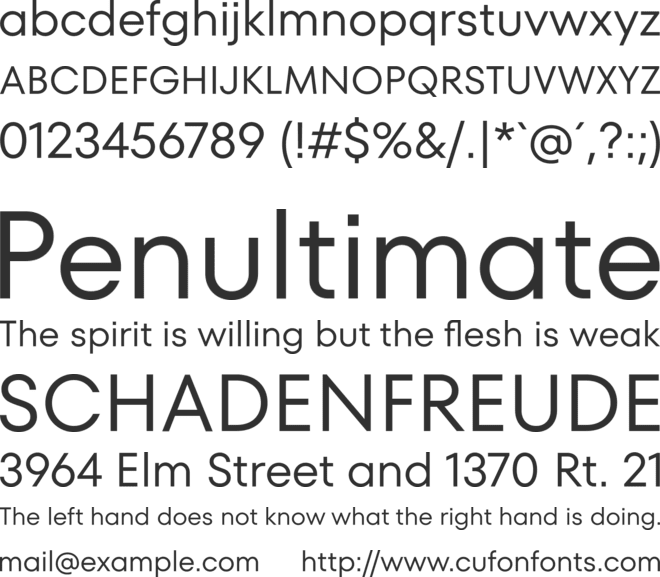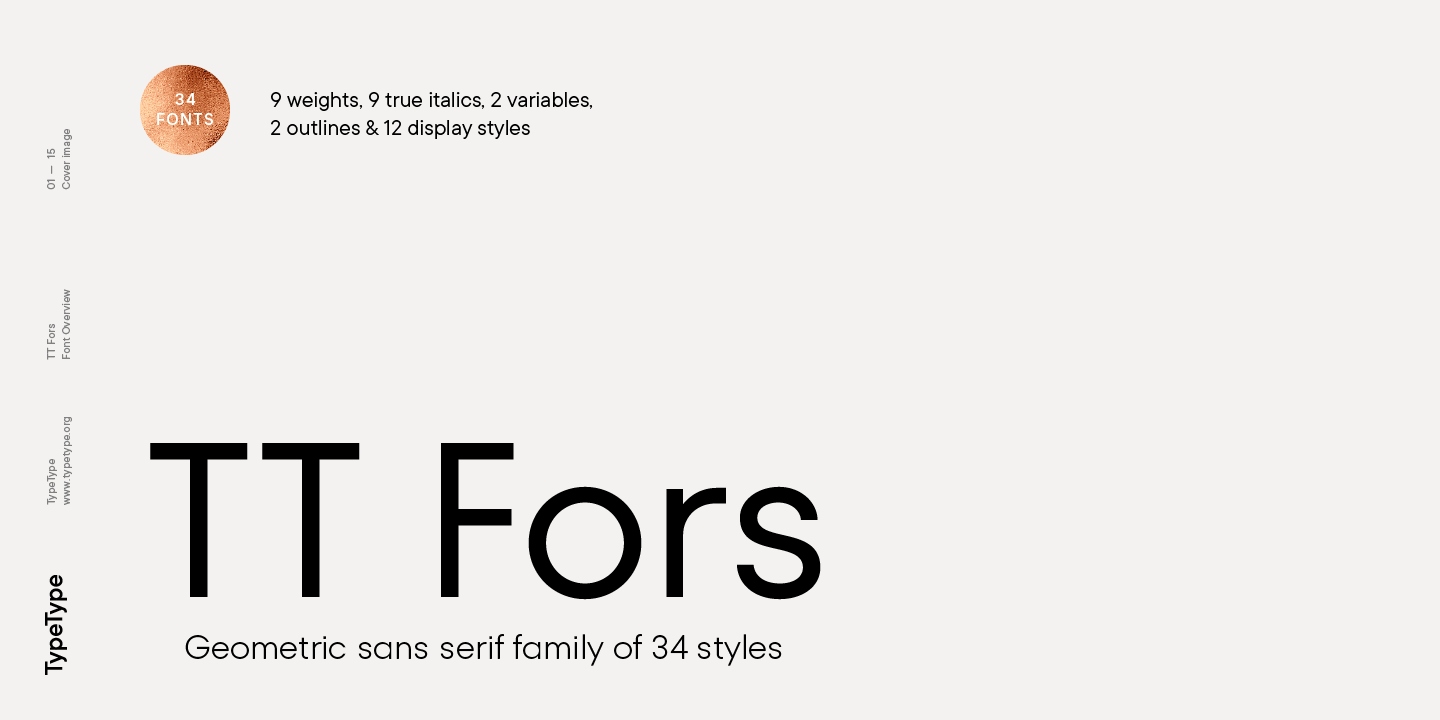
Tt Fors Font
Tt Fors Font - Tt fors has stylistic alternatives,. In basic > sans serif. Licensed for personal and commercial use. Web in total, tt fors family includes 19 fonts: Web the ultimate font download. Download 10,000 fonts for just $19.95. 29,934 downloads (83 yesterday) free for. This is a structured geometric sans serif font family with normal and condensed. Tt fors à € by typetype foundry. 9 weights and 9 italic styles and variable version.
Tt fors à € by typetype foundry. In basic > sans serif. Tt fors has stylistic alternatives,. 9 weights and 9 italic styles and variable version. This is a structured geometric sans serif font family with normal and condensed. Download 10,000 fonts for just $19.95. 29,934 downloads (83 yesterday) free for. Licensed for personal and commercial use. Web in total, tt fors family includes 19 fonts: Web the ultimate font download.
29,934 downloads (83 yesterday) free for. Web tt fors sans serif font. Web the ultimate font download. This is a structured geometric sans serif font family with normal and condensed. Download 10,000 fonts for just $19.95. Licensed for personal and commercial use. Tt fors à € by typetype foundry. 9 weights and 9 italic styles and variable version. Web in total, tt fors family includes 19 fonts: In basic > sans serif.
TT Fors Font
Tt fors has stylistic alternatives,. Web the ultimate font download. Web in total, tt fors family includes 19 fonts: In basic > sans serif. 9 weights and 9 italic styles and variable version.
In basic > sans serif. This is a structured geometric sans serif font family with normal and condensed. Web in total, tt fors family includes 19 fonts: 29,934 downloads (83 yesterday) free for. 9 weights and 9 italic styles and variable version.
TT Fors Font & Specimen
9 weights and 9 italic styles and variable version. Web the ultimate font download. Licensed for personal and commercial use. Download 10,000 fonts for just $19.95. Tt fors has stylistic alternatives,.
TT Fors Trial Thin font
9 weights and 9 italic styles and variable version. 29,934 downloads (83 yesterday) free for. Web the ultimate font download. This is a structured geometric sans serif font family with normal and condensed. Licensed for personal and commercial use.
TT Fors Font & Specimen on Behance
This is a structured geometric sans serif font family with normal and condensed. Web the ultimate font download. In basic > sans serif. 29,934 downloads (83 yesterday) free for. Tt fors à € by typetype foundry.
Licensed for personal and commercial use. 9 weights and 9 italic styles and variable version. Tt fors has stylistic alternatives,. Download 10,000 fonts for just $19.95. Tt fors à € by typetype foundry.
TT Fors Font & Specimen on Behance
Tt fors à € by typetype foundry. Web the ultimate font download. Download 10,000 fonts for just $19.95. Web tt fors sans serif font. Web in total, tt fors family includes 19 fonts:
TT Fors Trial Bold Italic font
Tt fors à € by typetype foundry. 9 weights and 9 italic styles and variable version. In basic > sans serif. This is a structured geometric sans serif font family with normal and condensed. Licensed for personal and commercial use.
TT Fors Font & Specimen
Web the ultimate font download. Licensed for personal and commercial use. Tt fors has stylistic alternatives,. Tt fors à € by typetype foundry. Web in total, tt fors family includes 19 fonts:
9 Weights And 9 Italic Styles And Variable Version.
Licensed for personal and commercial use. This is a structured geometric sans serif font family with normal and condensed. Download 10,000 fonts for just $19.95. Web in total, tt fors family includes 19 fonts:
Tt fors à € by typetype foundry. Web tt fors sans serif font. 29,934 downloads (83 yesterday) free for. Tt fors has stylistic alternatives,.